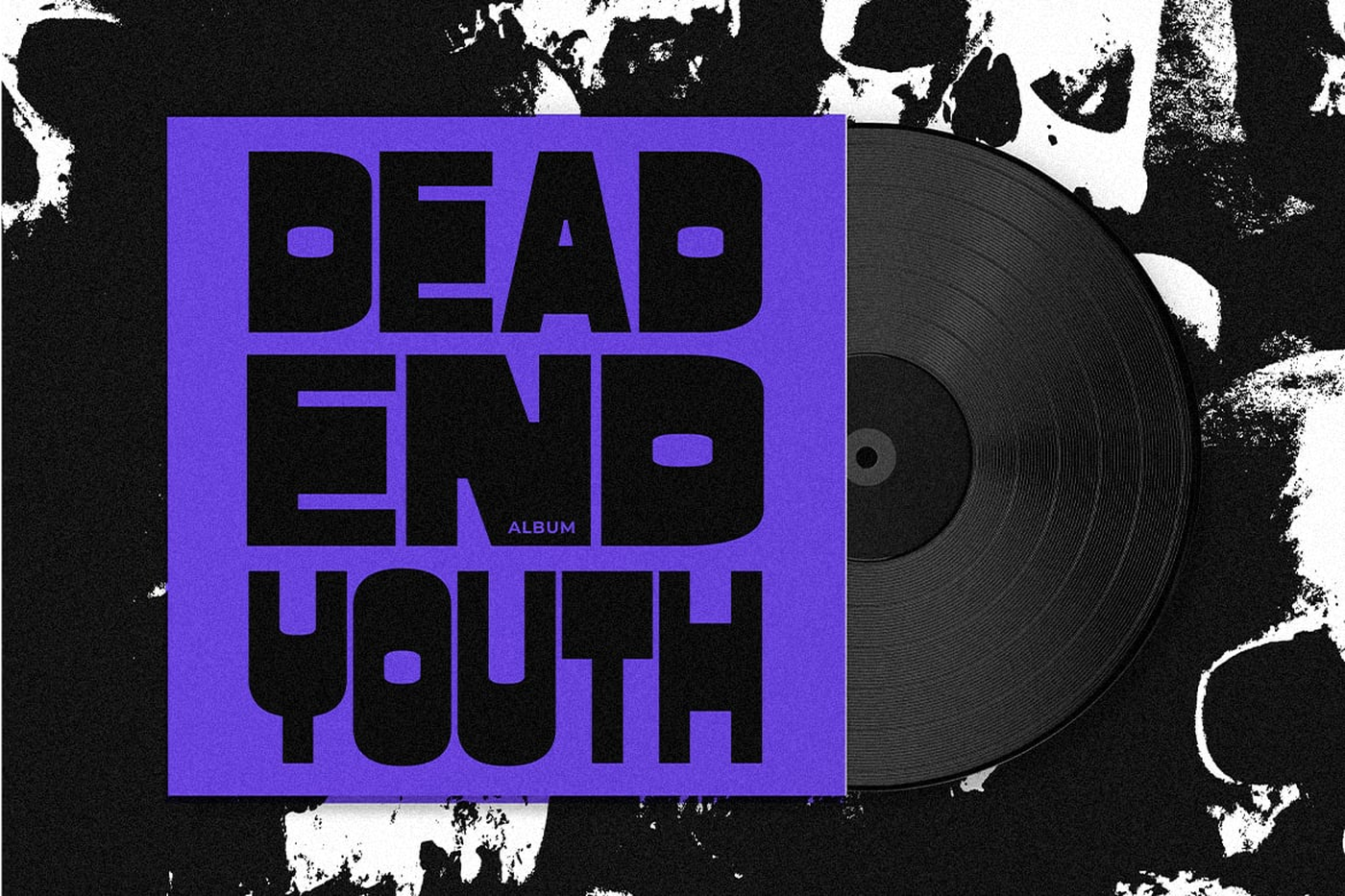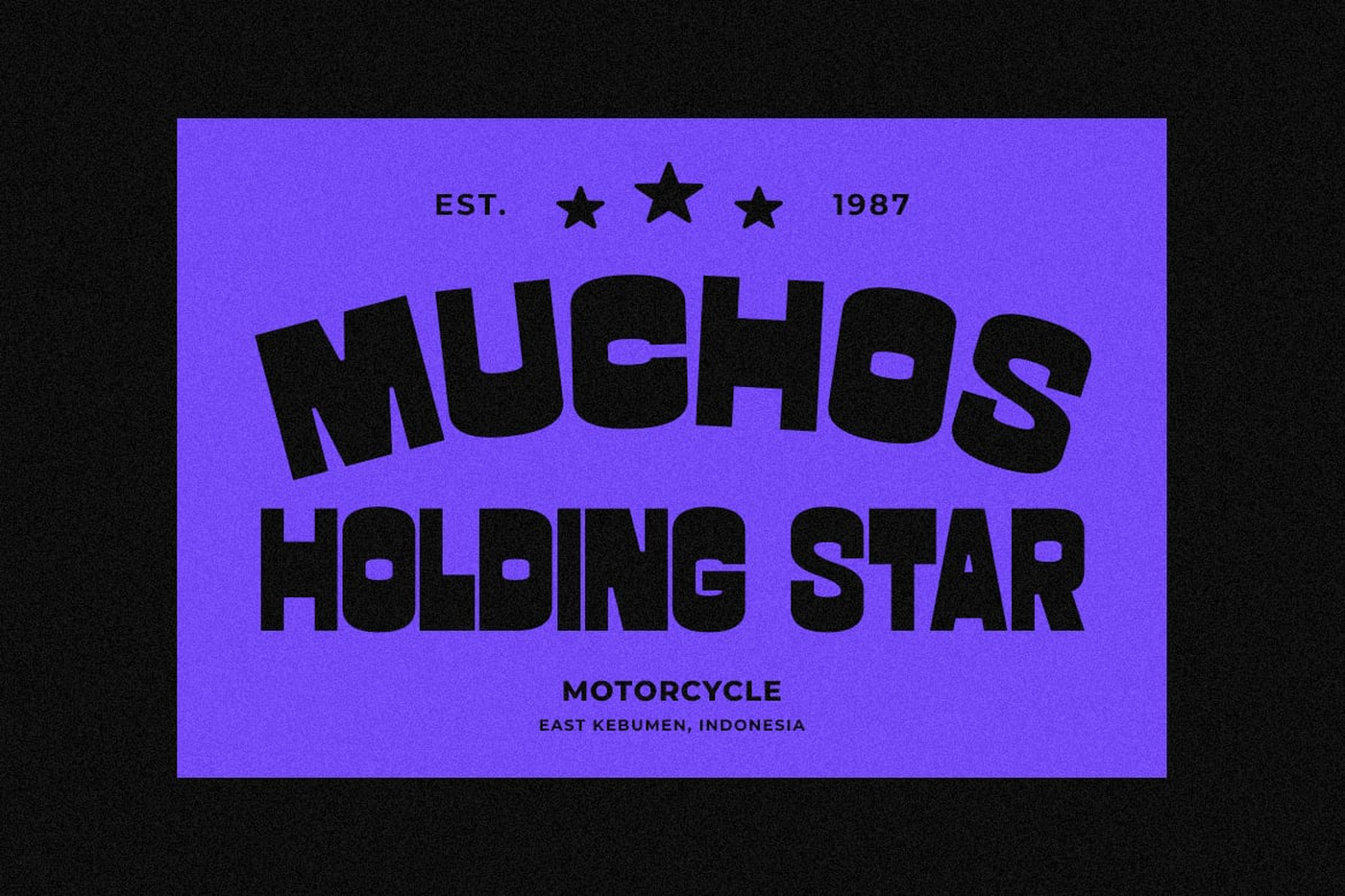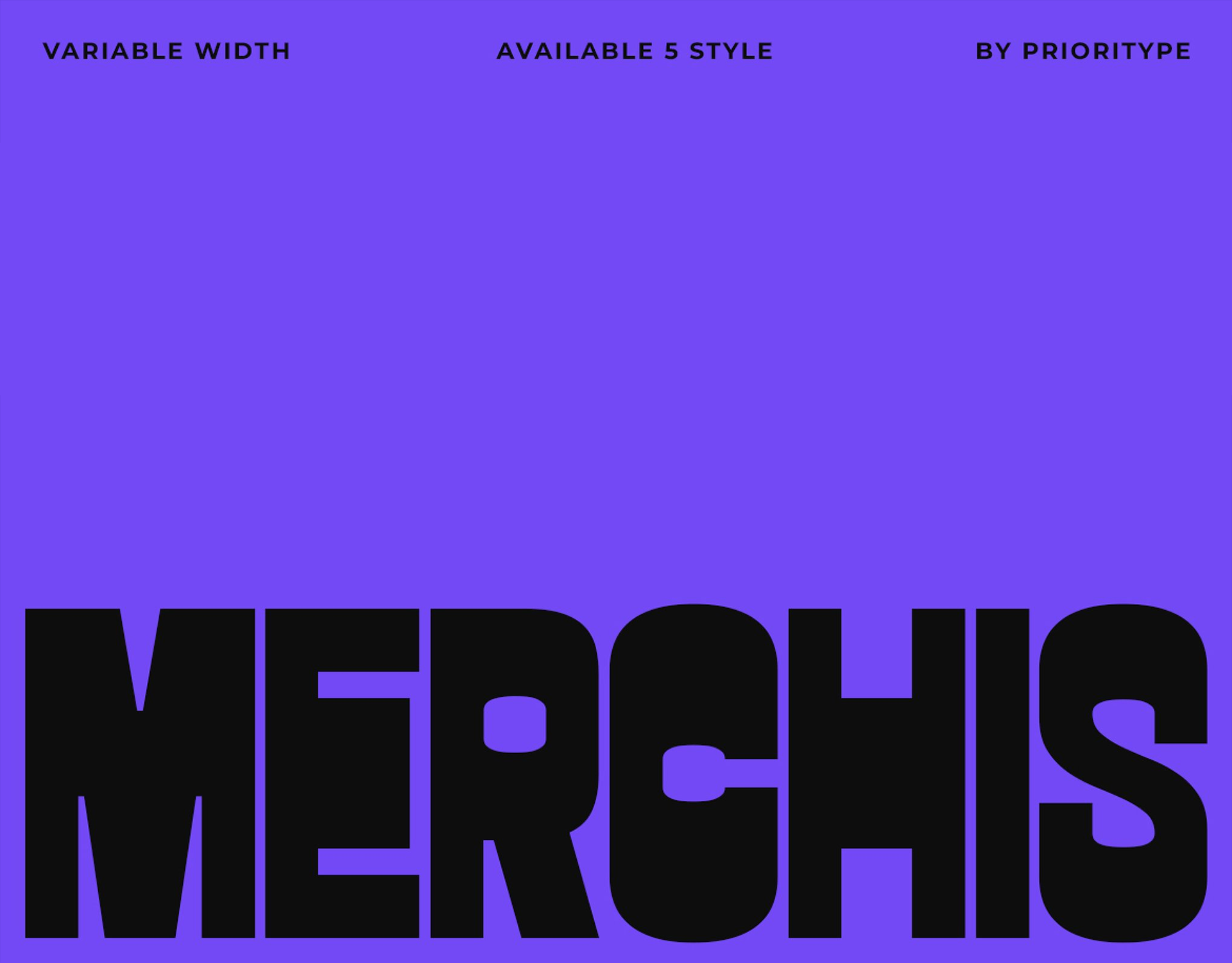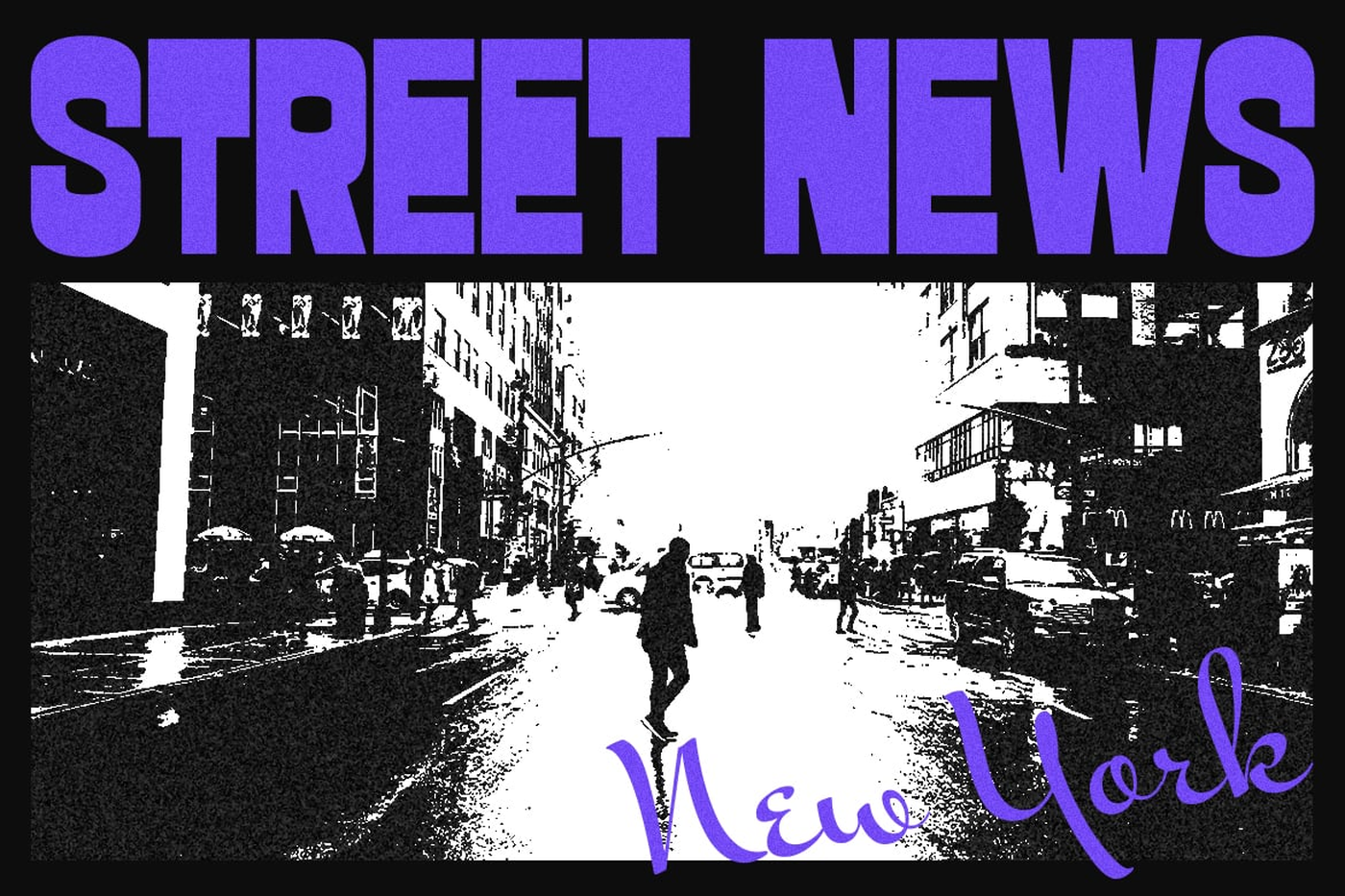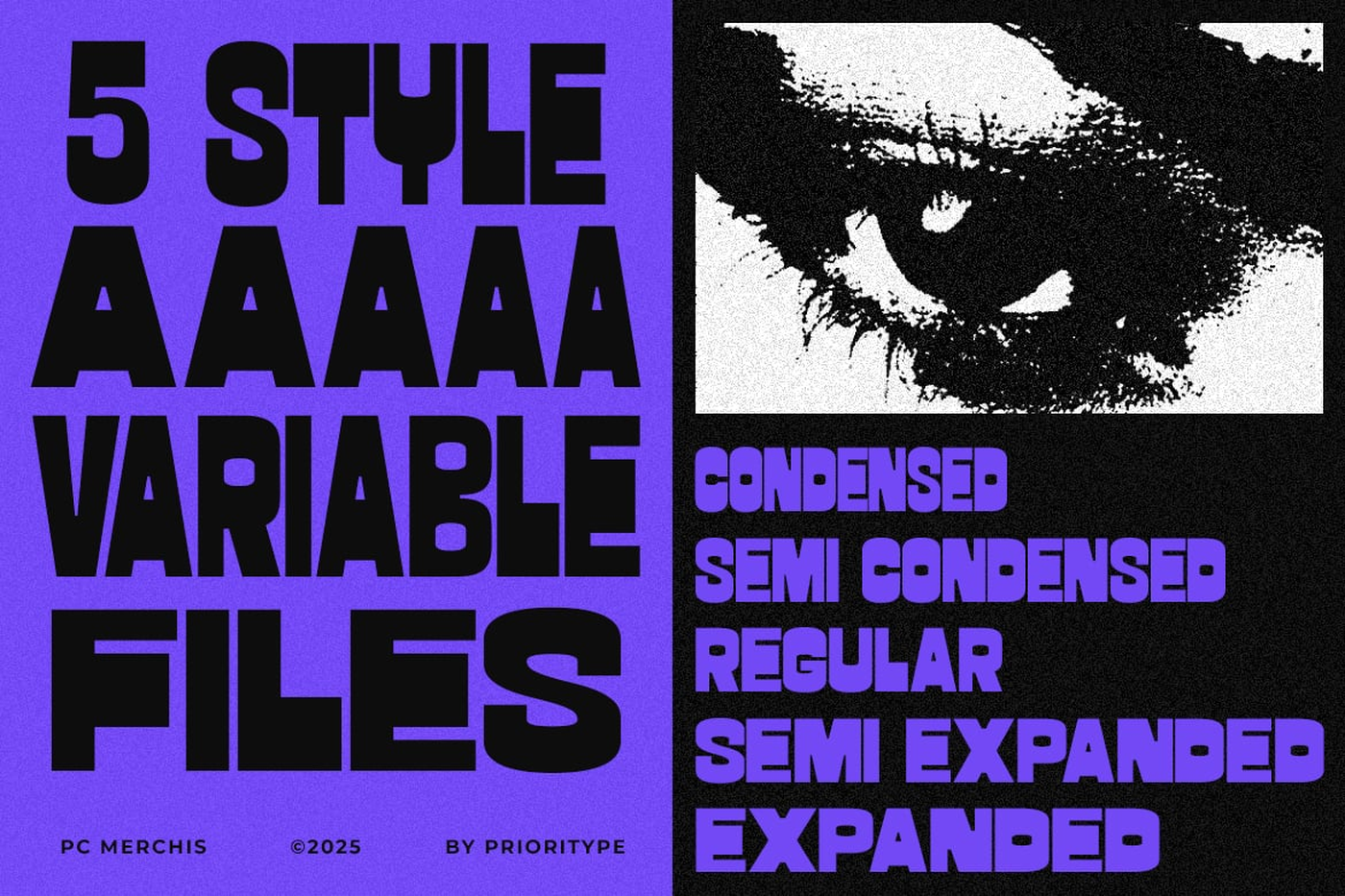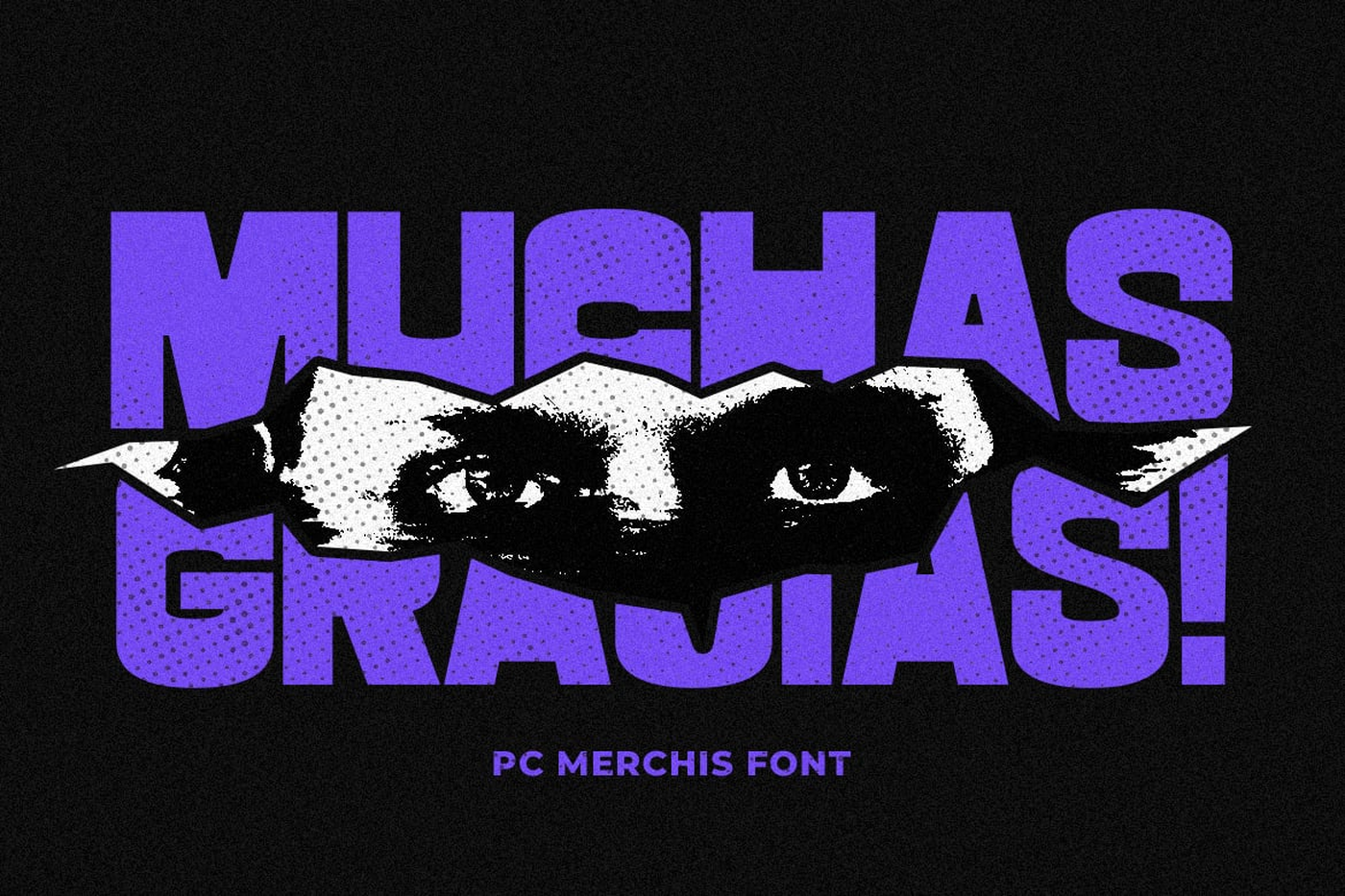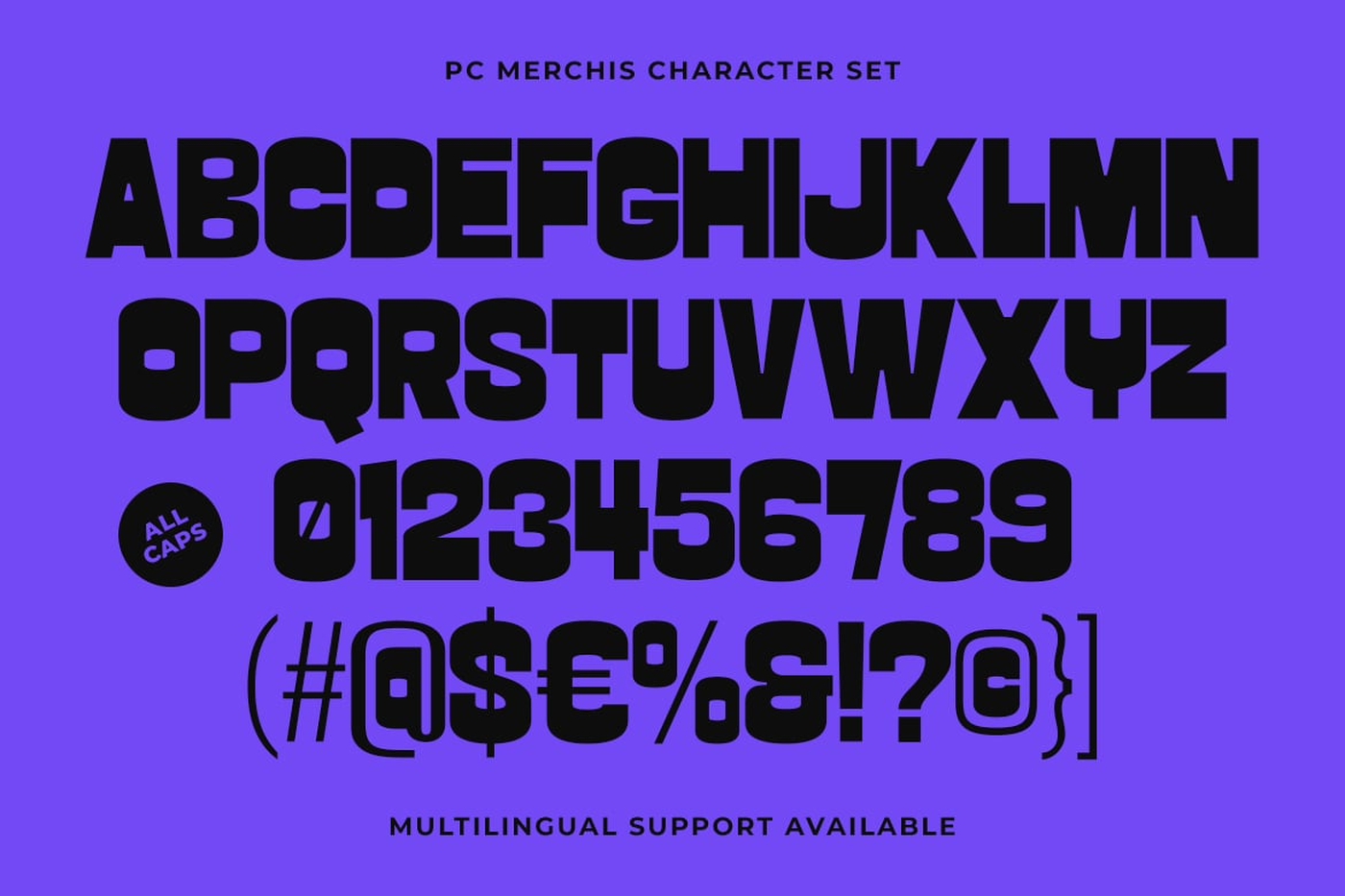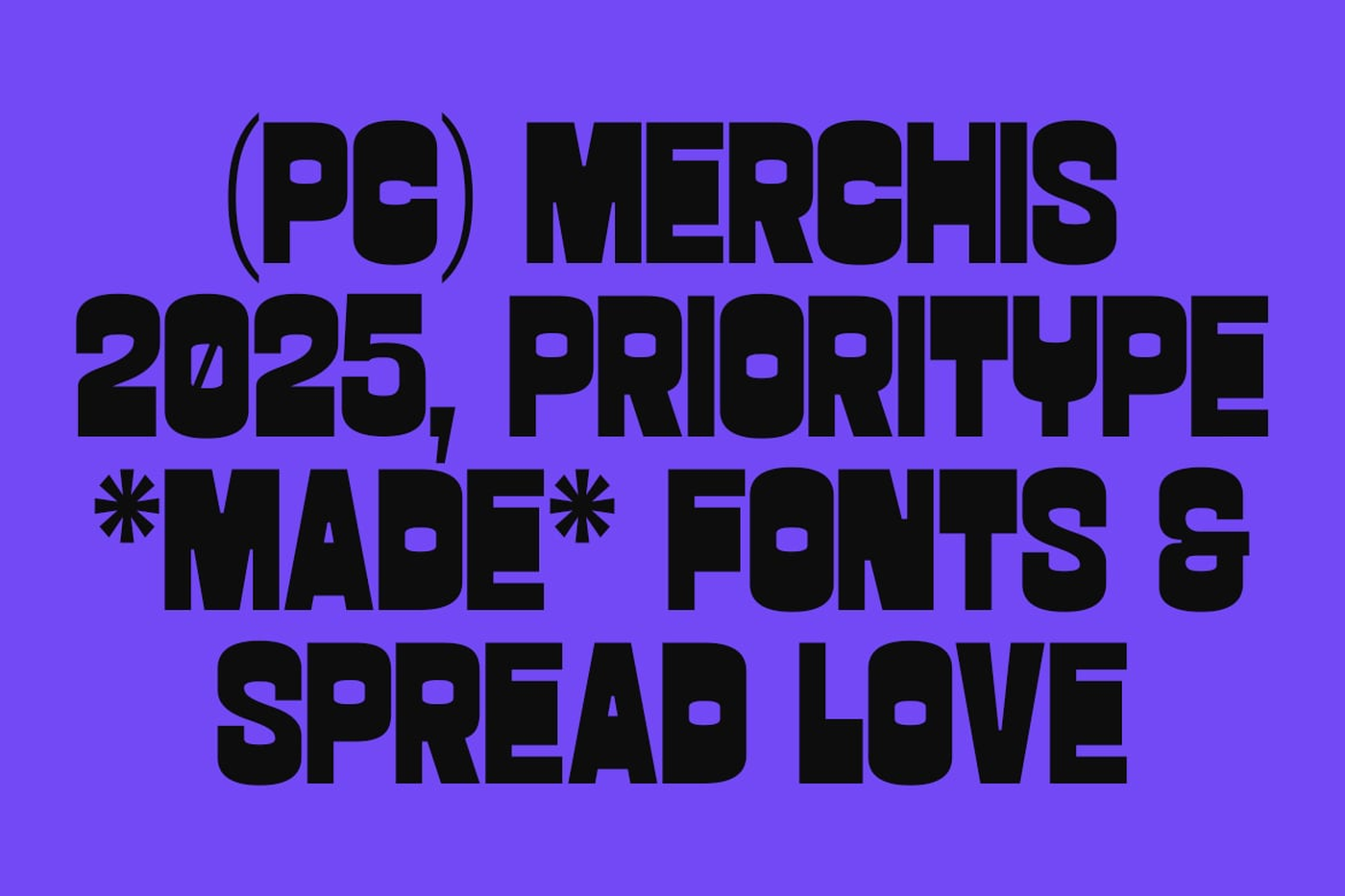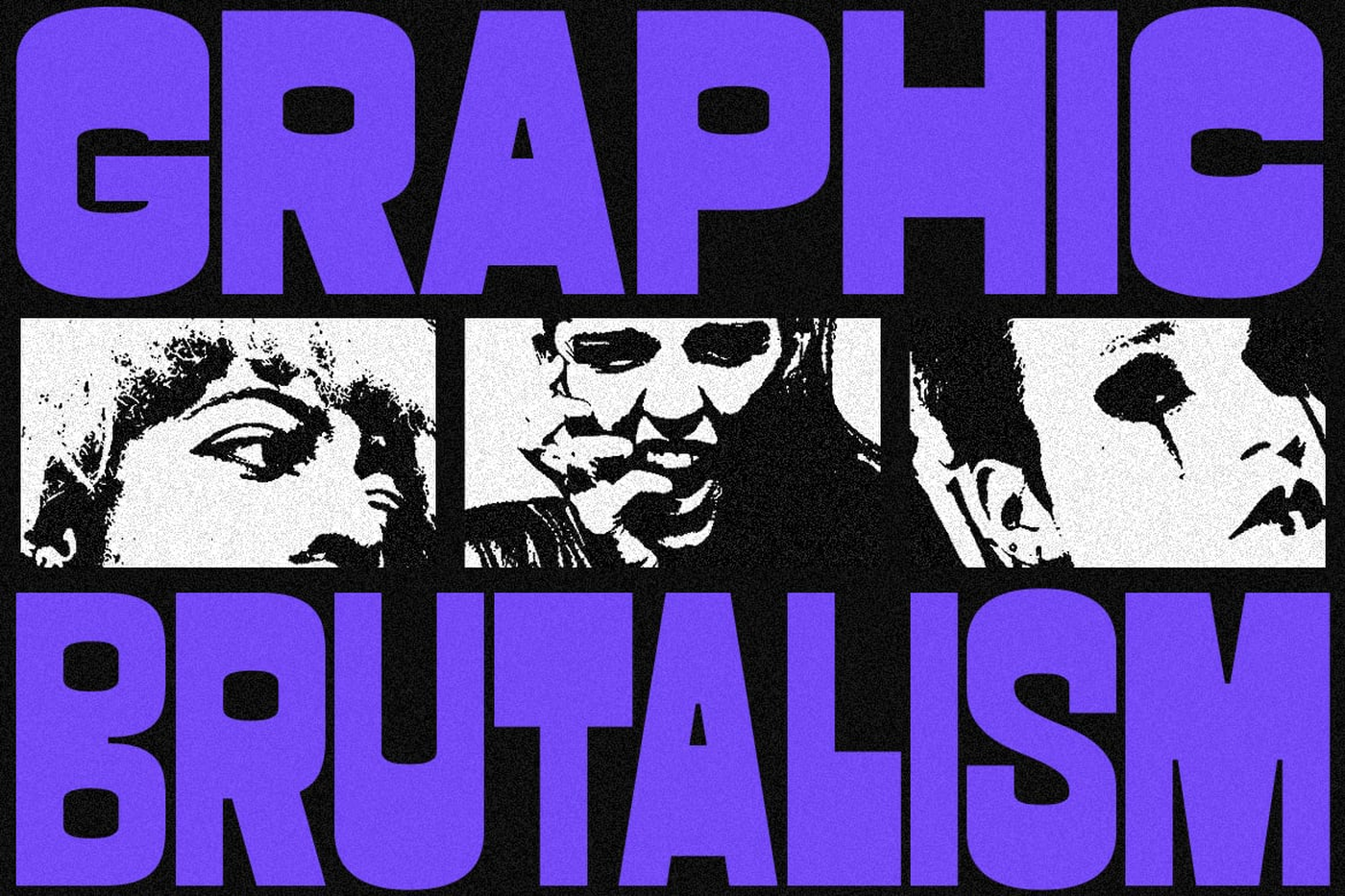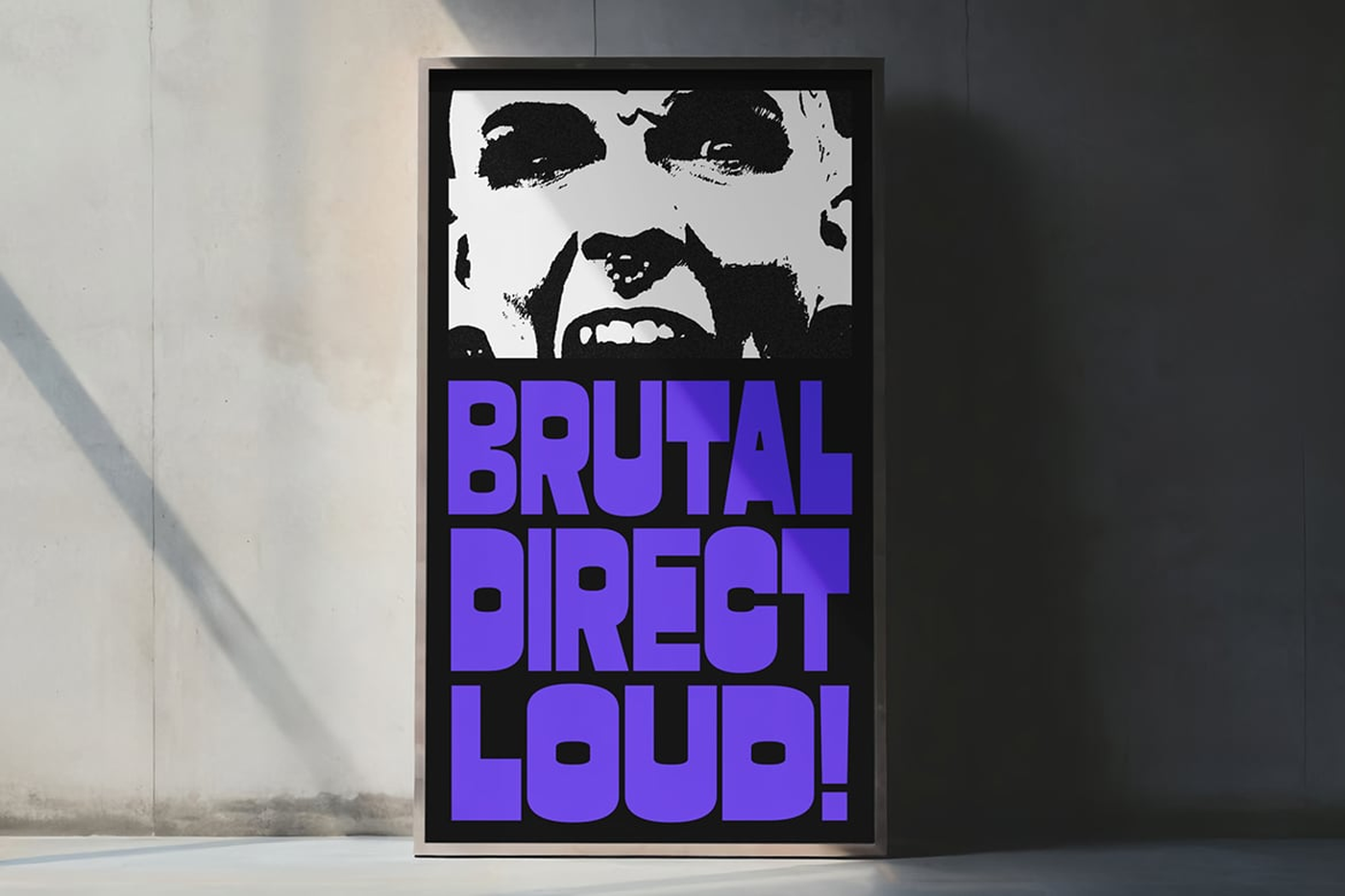
PC Merchis - Modern Brutalism Font
PC Merchis is a bold display font designed for posters with a strong, impactful presence. Featuring five widths (Condensed to Expanded), it offers versatility to create striking visuals that are both fierce and stylish. Whether for branding, headlines, or statement designs, PC Merchis ensures your typography stands out with power and character.